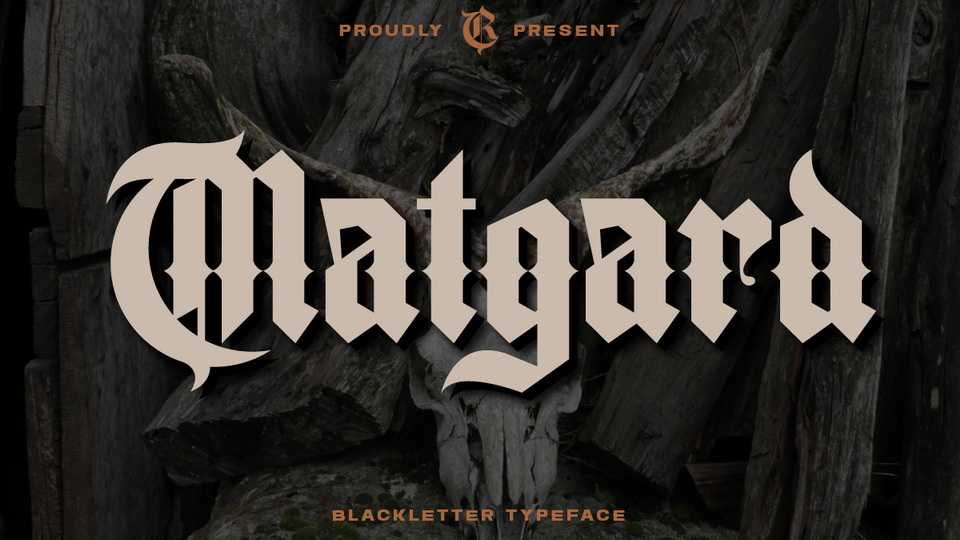
Download Matgard font, a high-contrast blackletter typeface. Matgard font will add a bold touch to your projects and will inspire you to create something unique and modern.